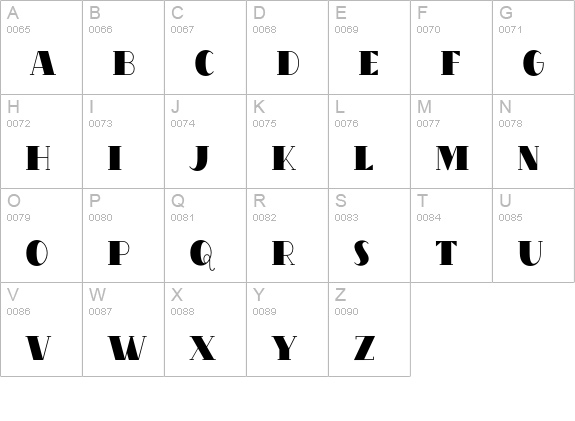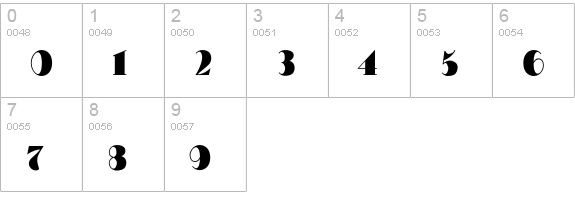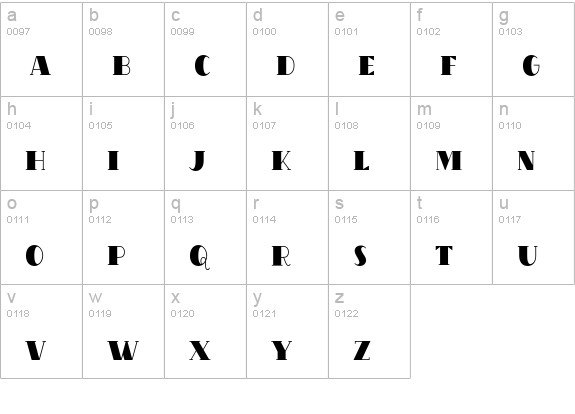
Attention Font Details
Attention font is a captivating and attention-grabbing typeface designed to make your text stand out. With its bold and modern style, this font is perfect for headlines, titles, and any other text that needs to make a statement. The sleek lines and unique curves of Attention font will draw in your audience and keep them engaged. Best of all, Attention font is available for free download at FontsMarket.com. This means you can easily add this eye-catching font to your projects without any cost. Whether you're designing a poster, creating a logo, or working on a website, Attention font is sure to make a lasting impression. Download it today and start grabbing attention with your text!